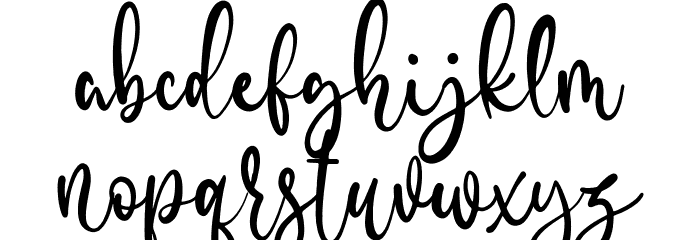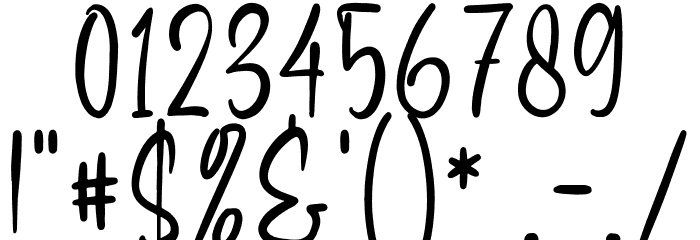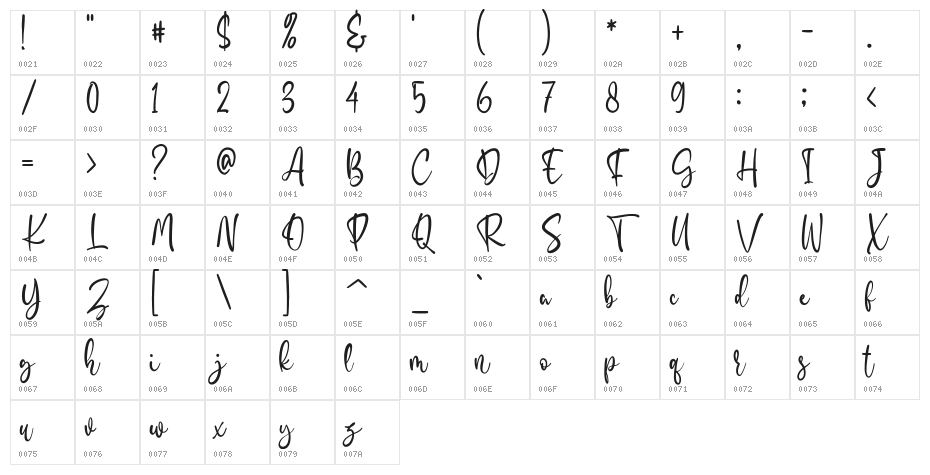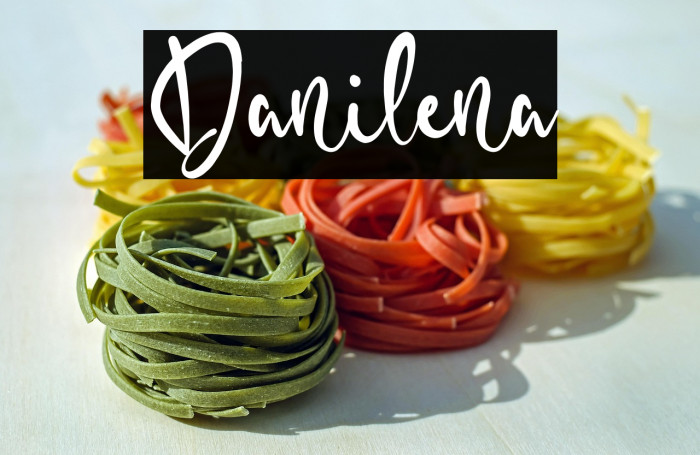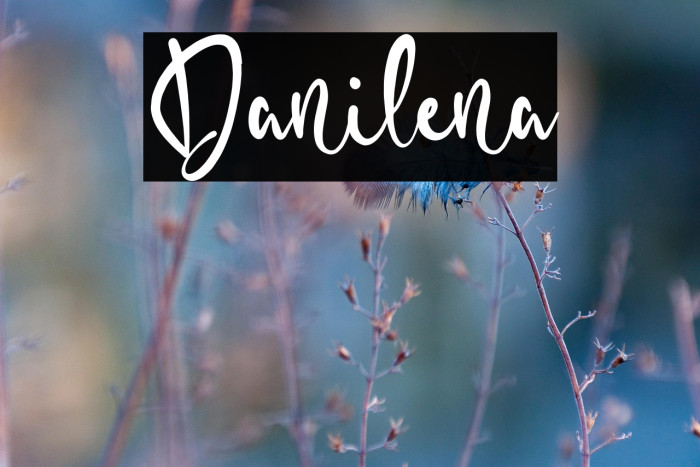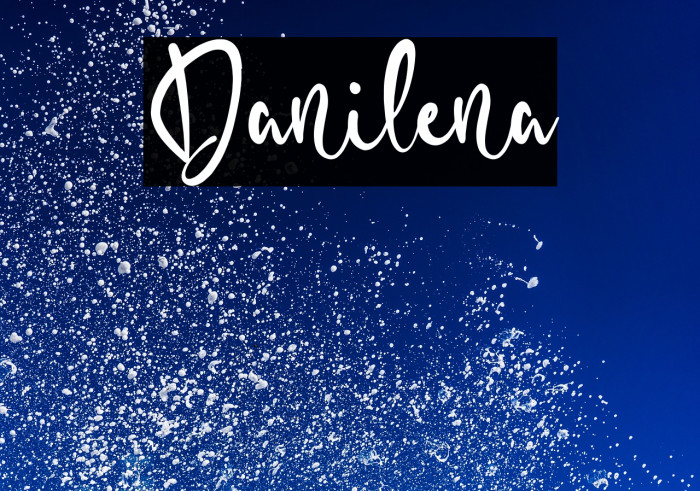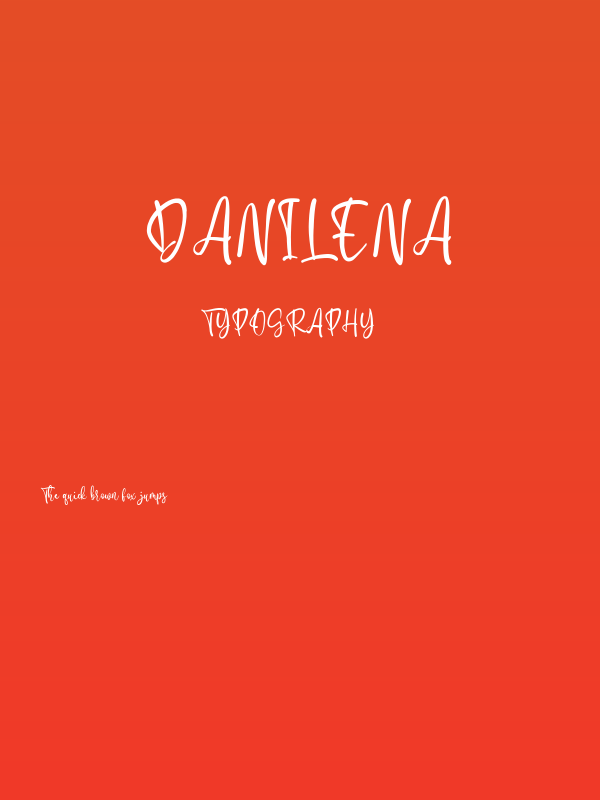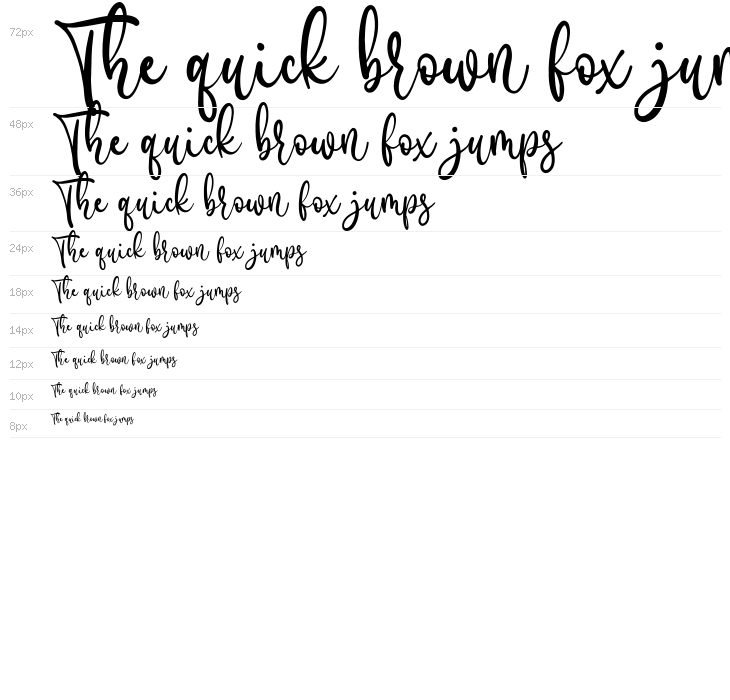
Danilena Font
This font features a lively and expressive handwritten style, characterized by its fluid and dynamic strokes. The uppercase letters are bold and slightly slanted, adding a sense of movement and energy. The lowercase letters maintain a consistent flow, with loops and curves that enhance its handwritten appeal. The numerals are clear and distinct, matching the playful yet elegant style of the alphabet. Special characters are creatively integrated, maintaining the overall aesthetic. This font is perfect for projects that require a personal touch, such as invitations, greeting cards, and branding materials.
A lively handwritten font with fluid, dynamic strokes and a playful elegance.
- Proposed Projects: Ideal for invitations, greeting cards, branding, and any project needing a personal touch.
- Use Case: Logos, Headlines, Invitations